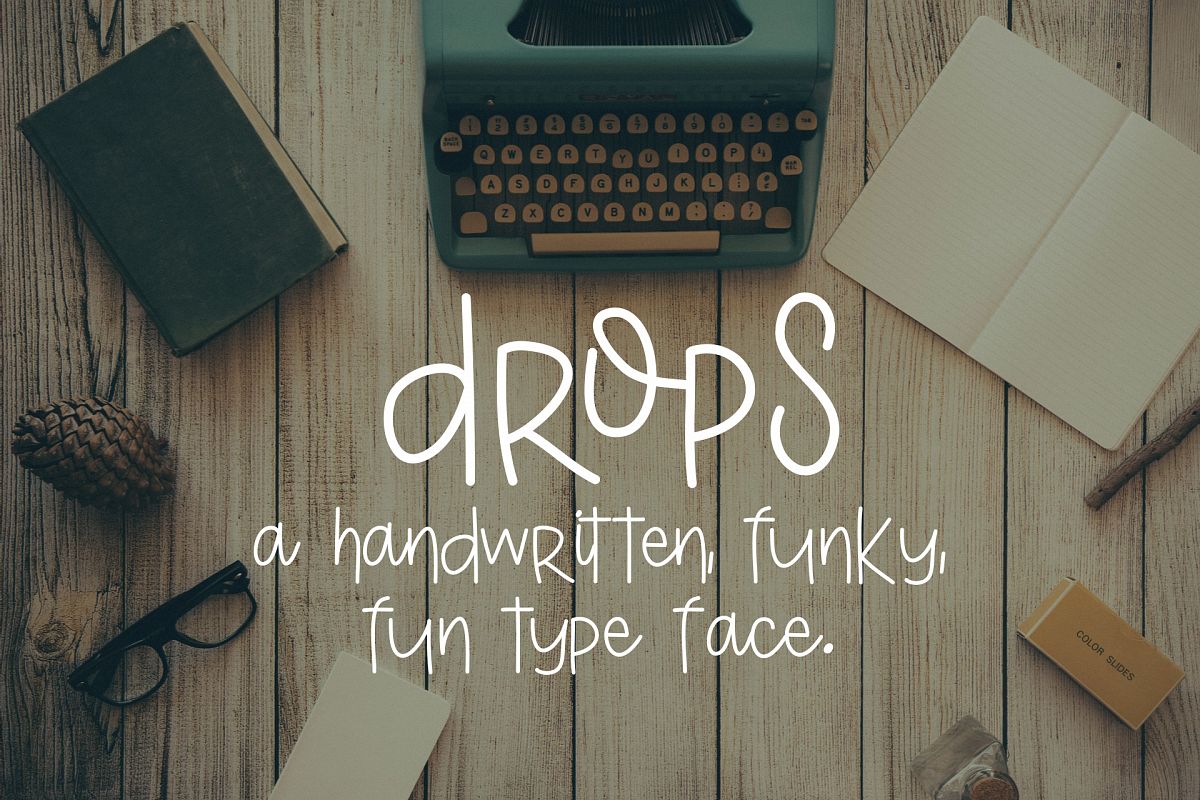
Drops
A funky hand-drawn handwriting font featuring a natural mix of script and print letters. Drops is a monoscript with a bouncy feel, perfect for logo creation, poster design, and many more uses.